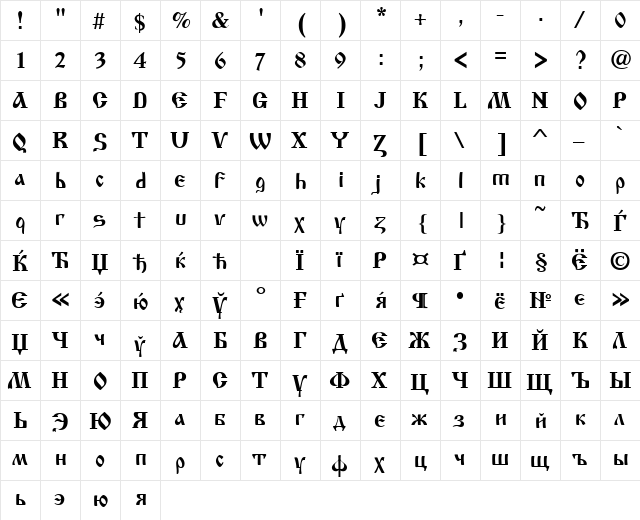
CyrillicOld Bold
Design Context for CyrillicOld Typeface
CyrillicOld is a composed and adaptable typeface that performs quietly and consistently across a wide range of design contexts. The heavy weight commands attention and anchors typographic hierarchies.